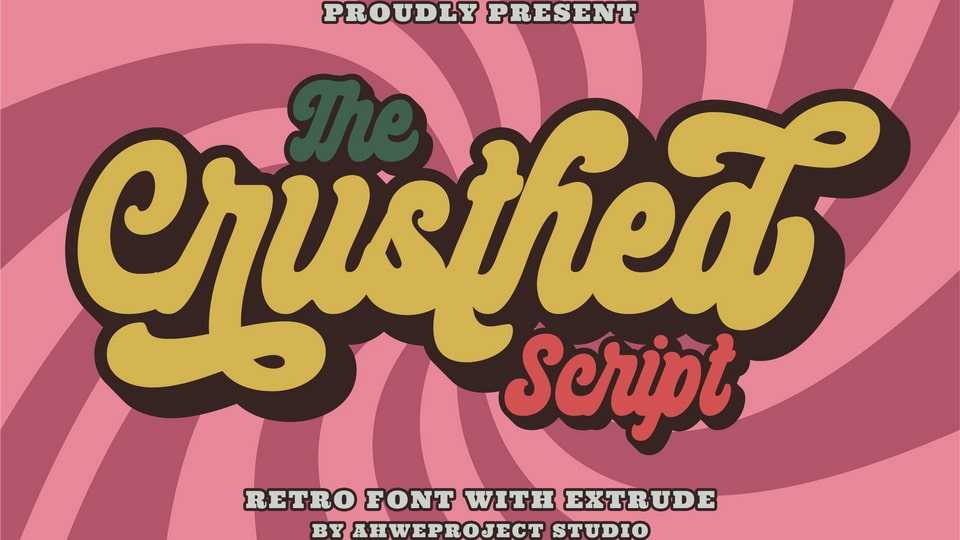
Download The Crusthed font, a bold retro-style display typeface. With a retro and groovy vibe, this font is suitable for a wide pool of design ideas.